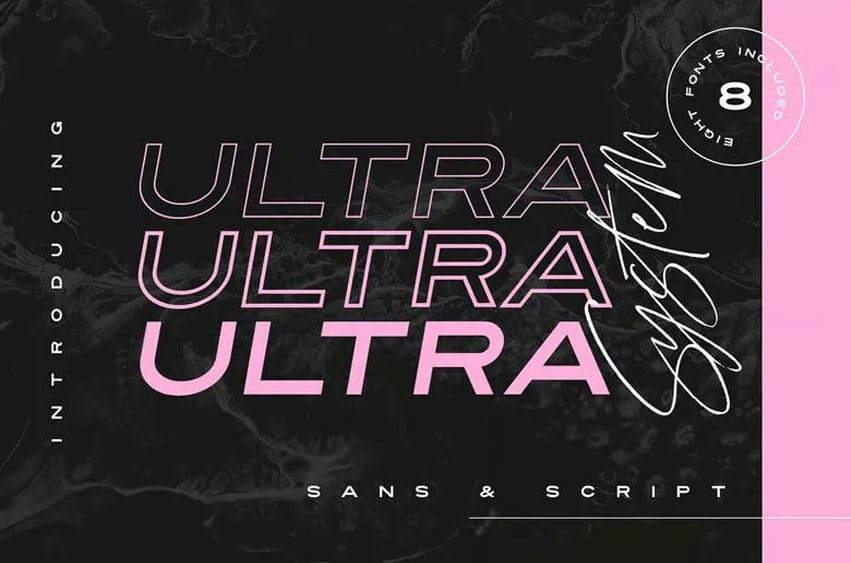
Ultra System Font is a fashionable series of 8 typefaces with each one painstakingly produced to harmonize naturally with the rest.
With 6 clean sans fonts and 2 textured script fonts there are masses of combinations and arrangements of each font that can be made to generate vivid typographic styling that is modern and striking to look at.